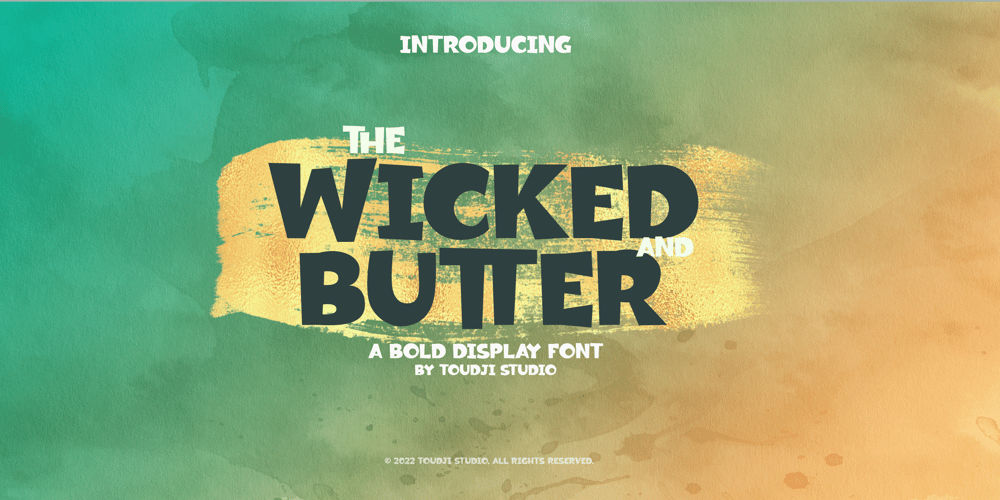
Wicked Butter Font Family was designed by Tegar Hafizhal, Tegar Hafizhal Manggala and published by Toudji Studio. Wicked Butter contains 1 styles and family package options. Wicked Butter is a display font inspired by writing styles for young children, such as animated cartoons, comic posters, and so on. This font is bold but sharp and bouncy, which makes it look more playful but still strong. This font also comes with several combined letter variations. but you can still use wicked butter for many print and digital needs.